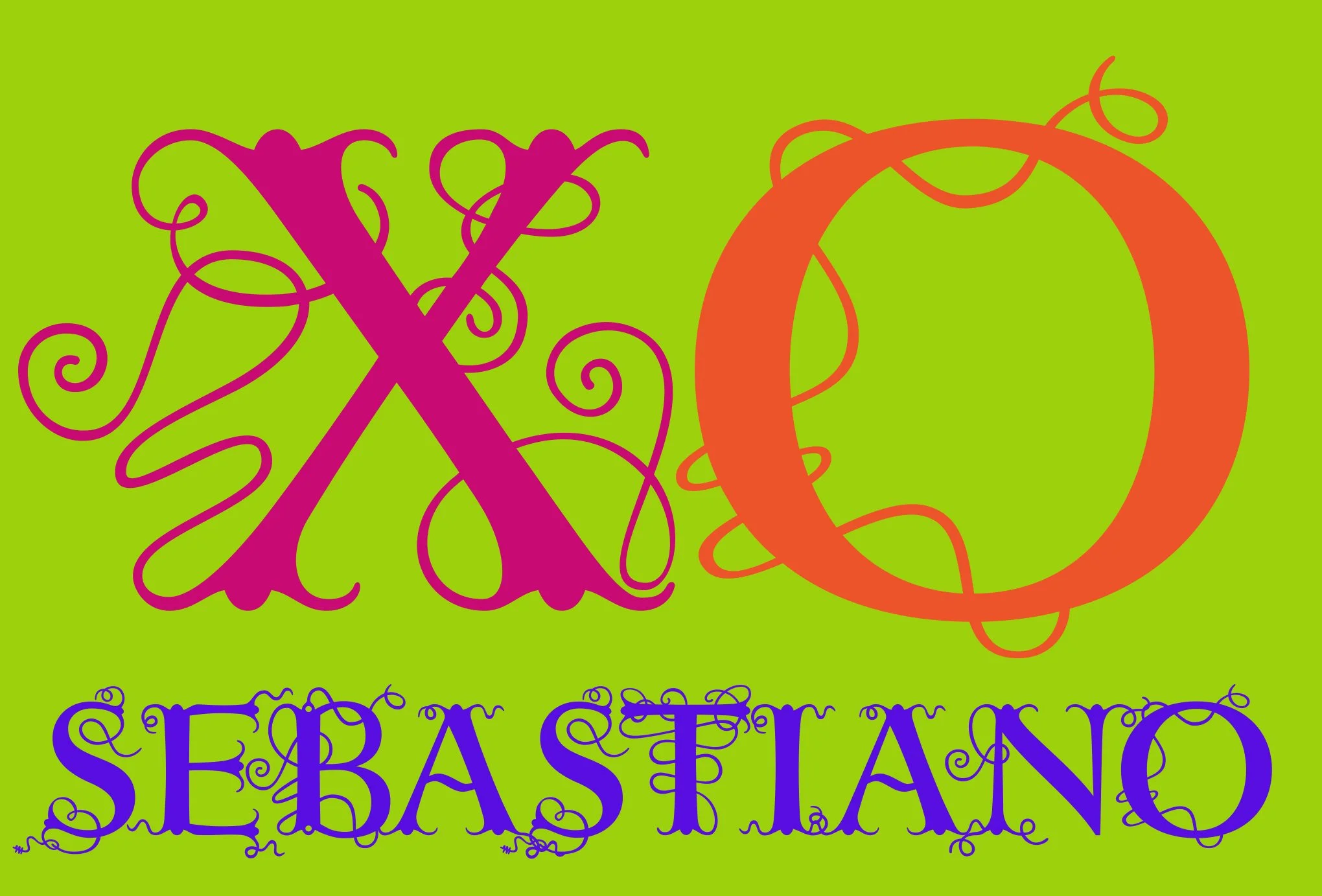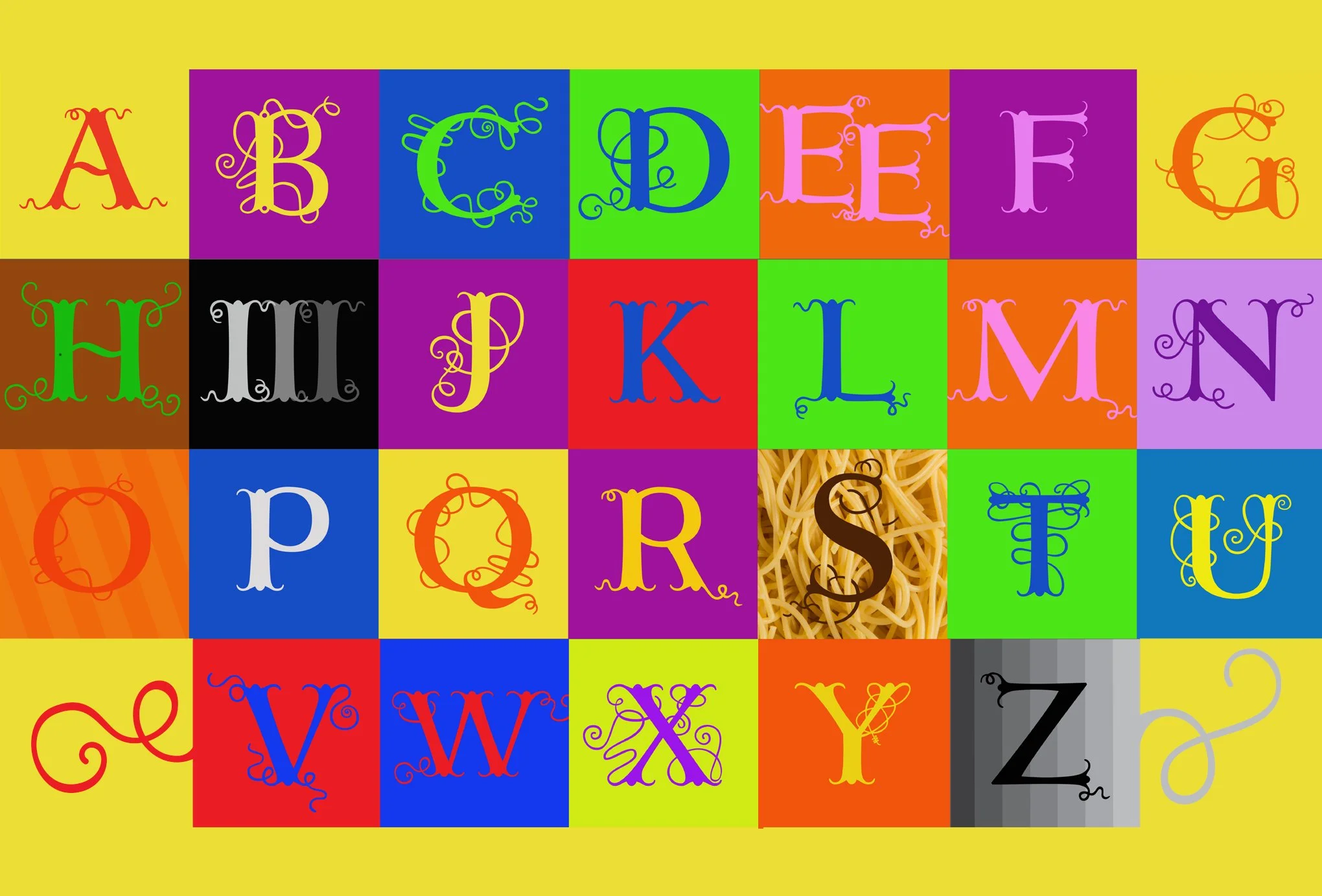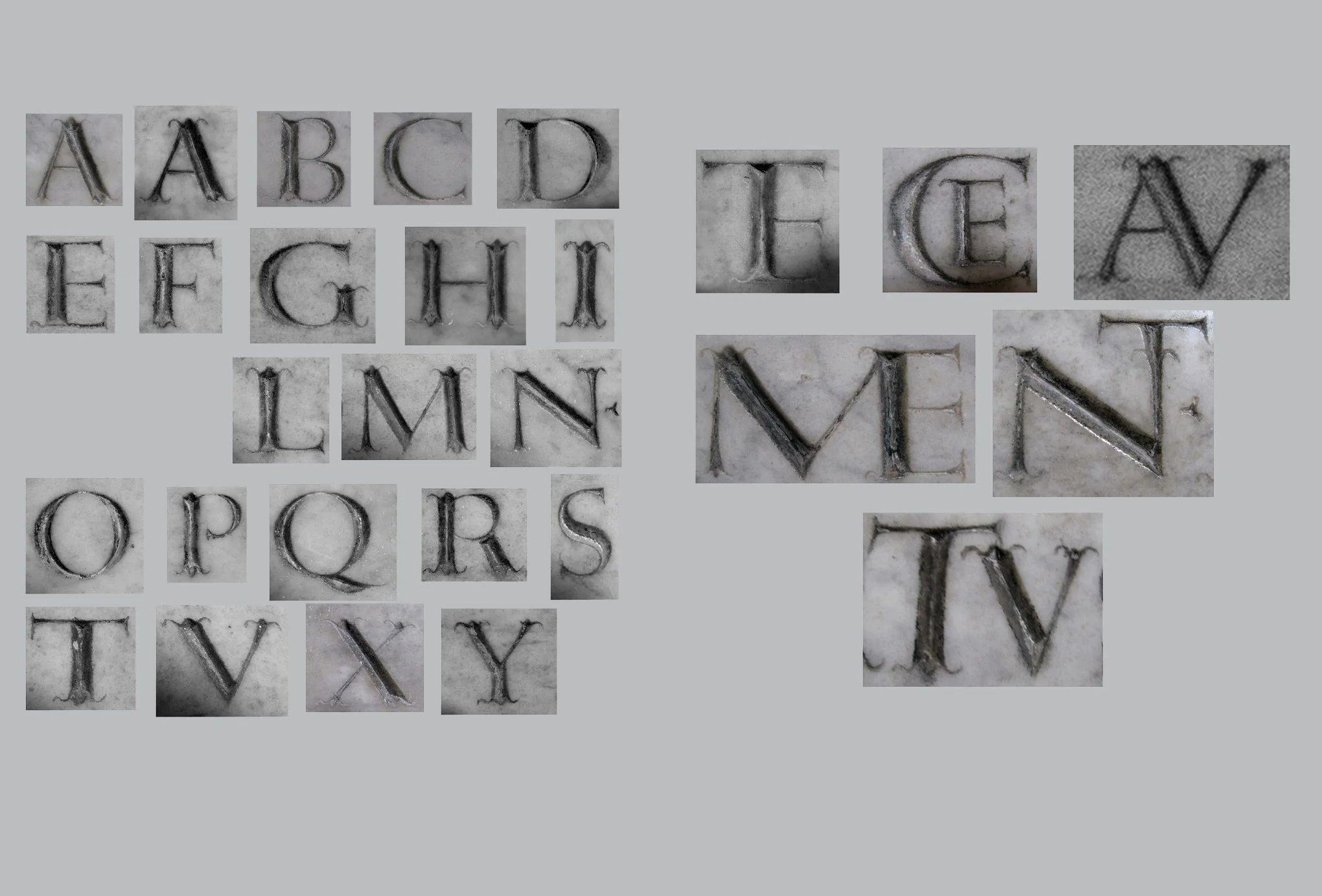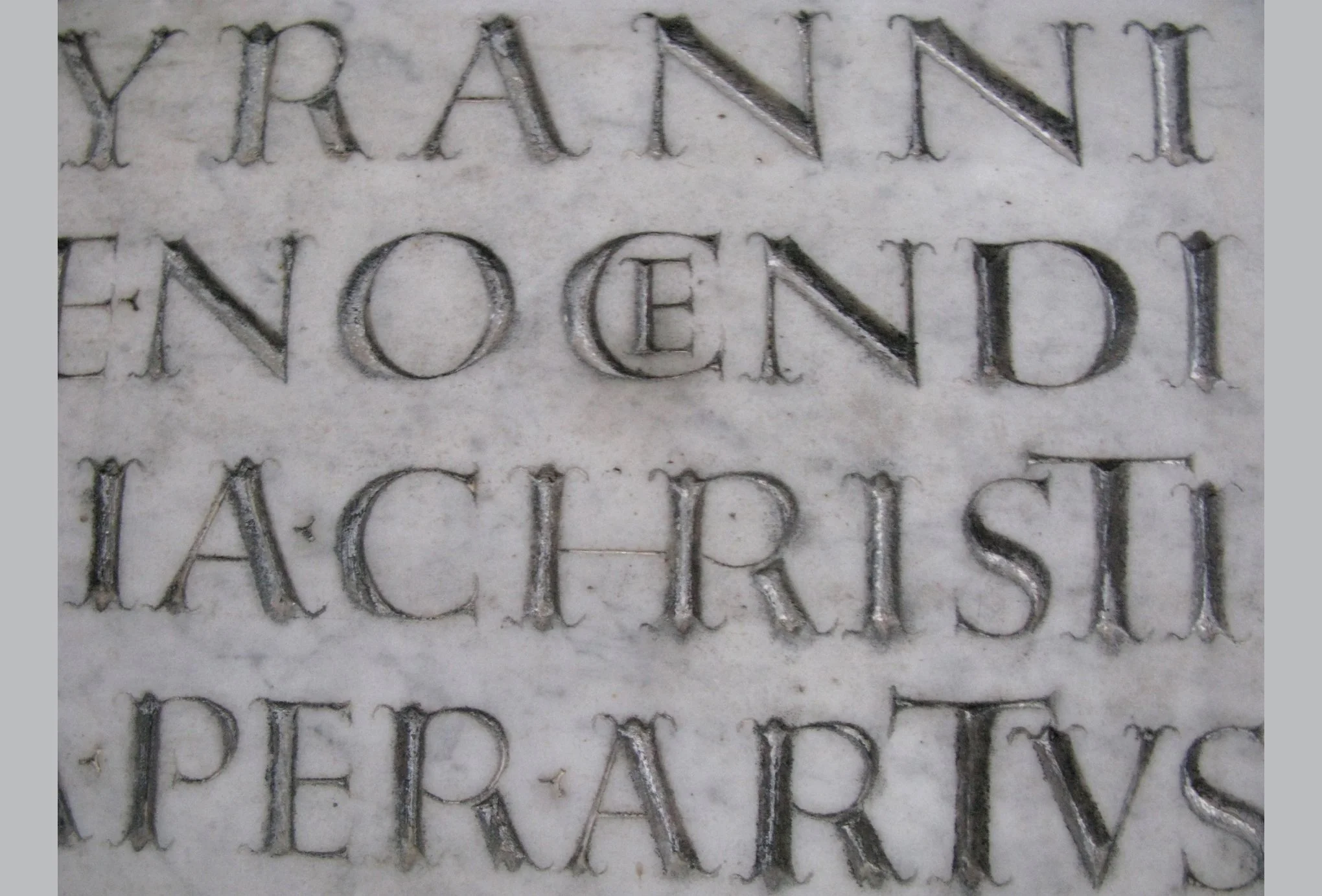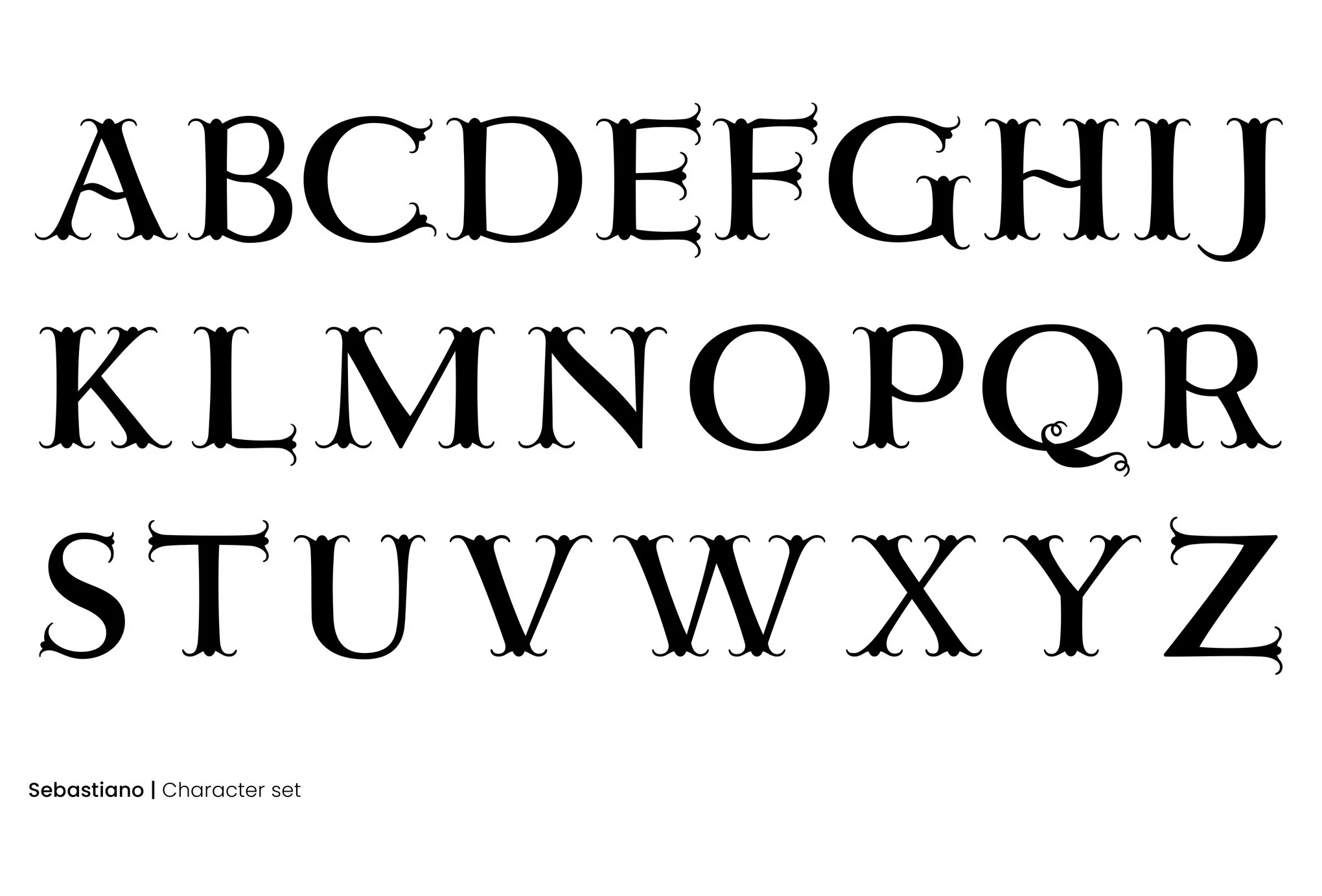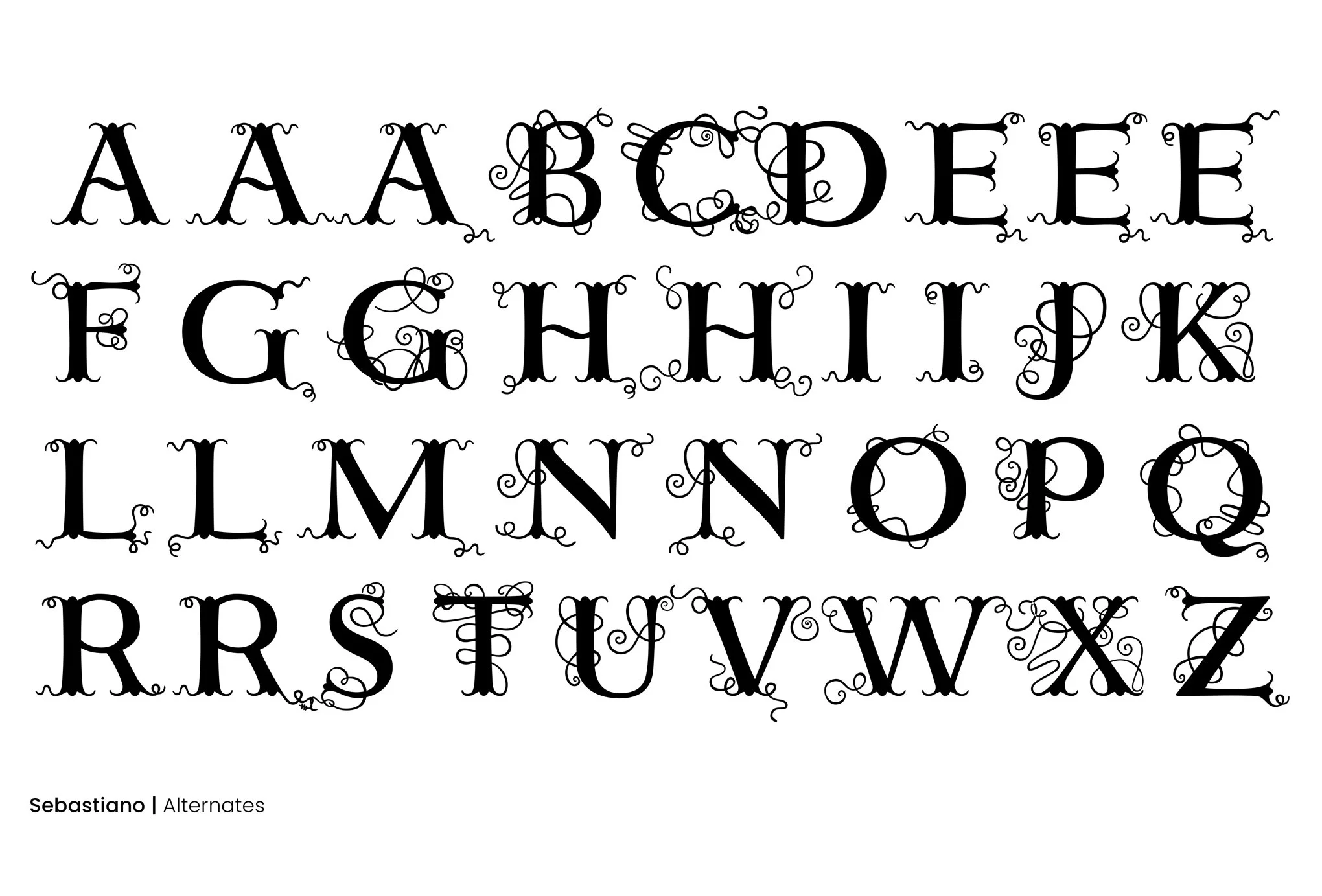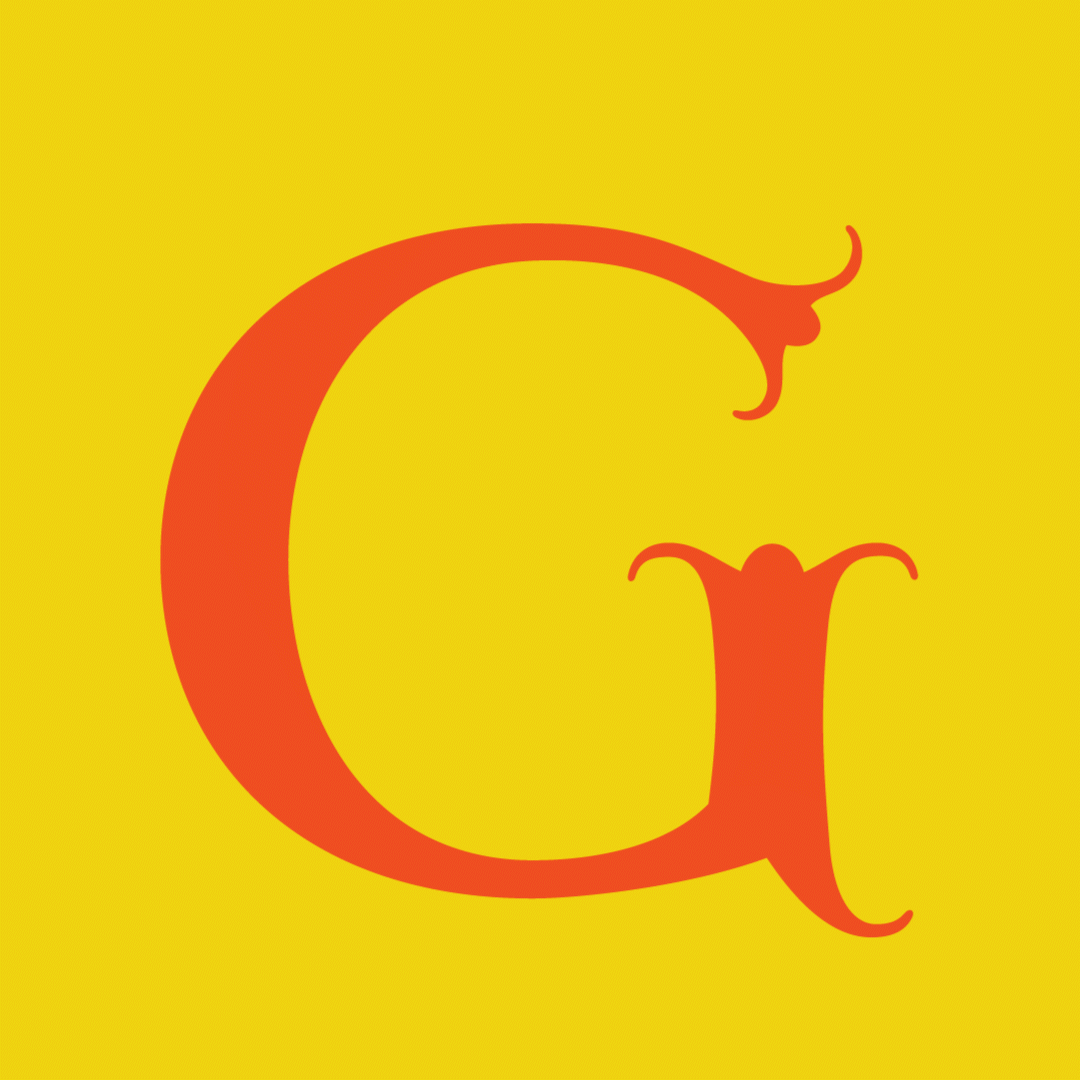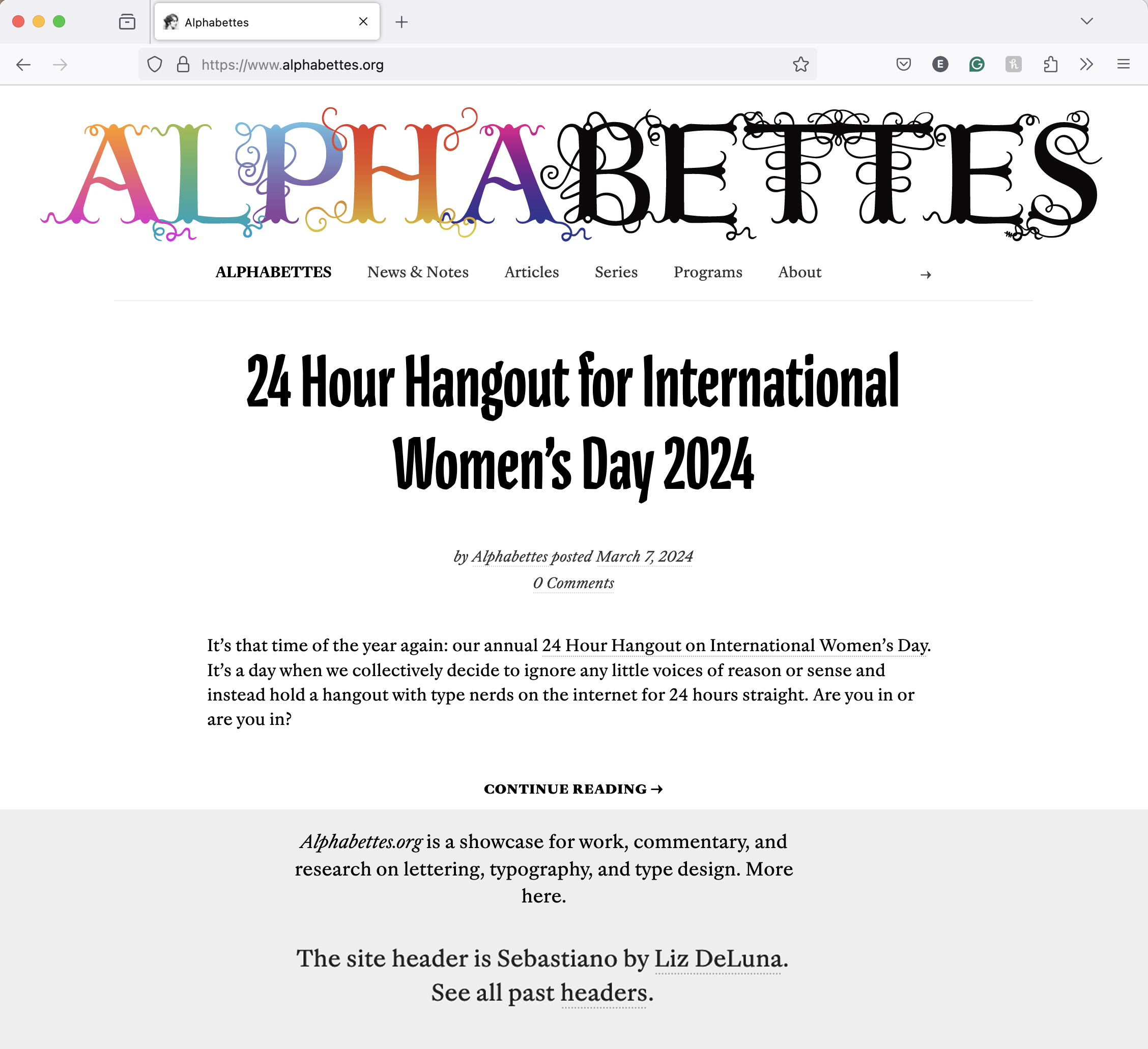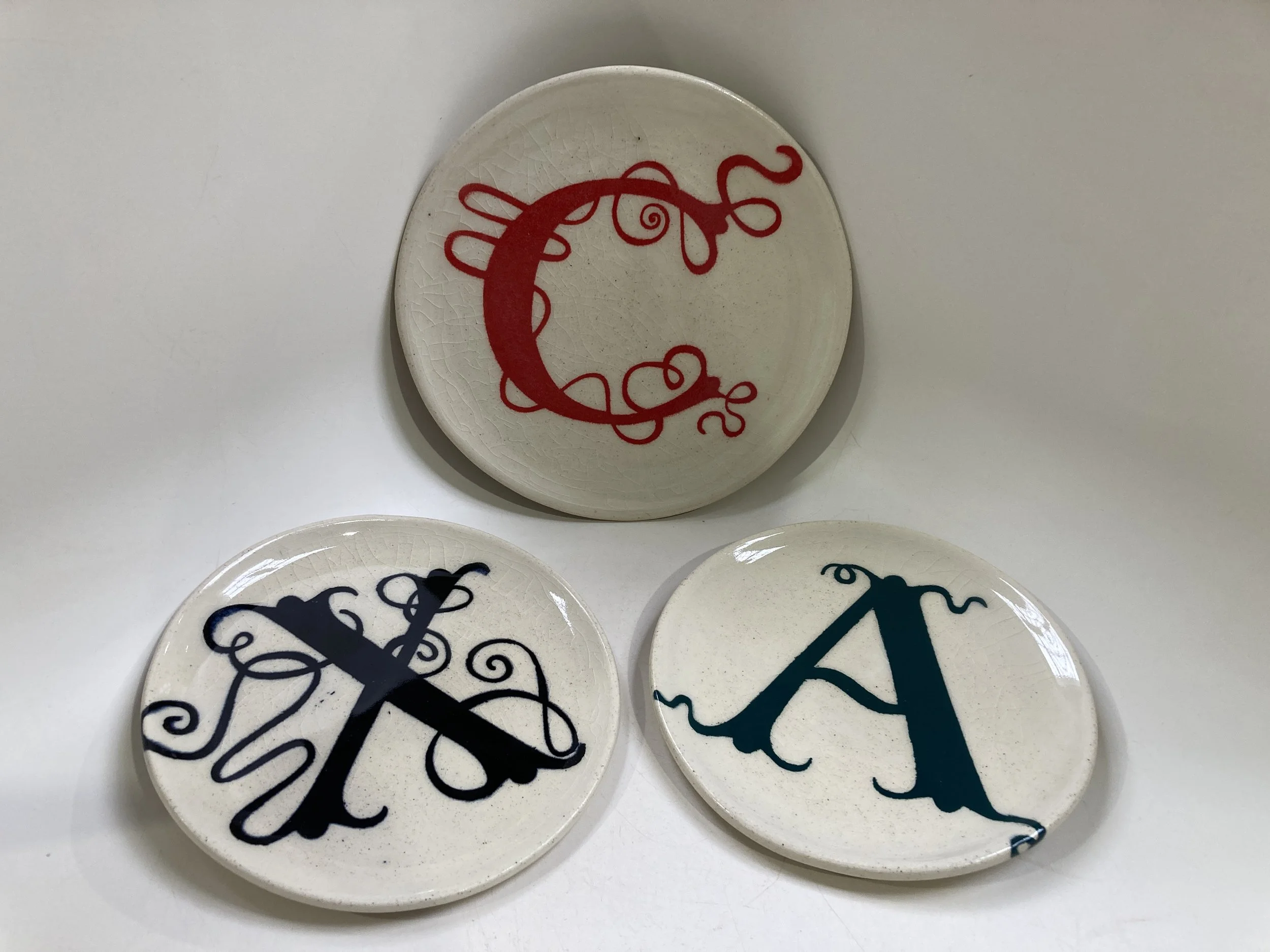
Sebastiano Typeface
Sebastiano//
a typeface design inspired by a historic stone plaque in the Basilica San Sebastiano fuori le mura, in Rome. The letterform carvings were made by Dionysius Filocalus for Pope Damascus in the 6th Century. Drawn in by the sheer beauty and unique qualities of these handmade stone carvings, in this space of spiritual contemplation on the site of one of Rome’s oldest and most venerated catacombs, they seemed like the perfect inspiration for a typeface design.
The alternate letterforms grew roots, stems and tentacles, connecting them to each other, and to their ancient past. I became interested in playing with the idea of how letterforms intertwine and connect in many global scripts. Swash or more decorative capital letterforms are not often set together iinthe Latin alphabet…but why not?? Perhaps they can relate and connect in new ways in our alphabet as well!!
Included in the images are:
— An image from the letterforms posted for 36 Days of Type
— Photos of some of the original reference
— The uppercase character set
— The alternate character set